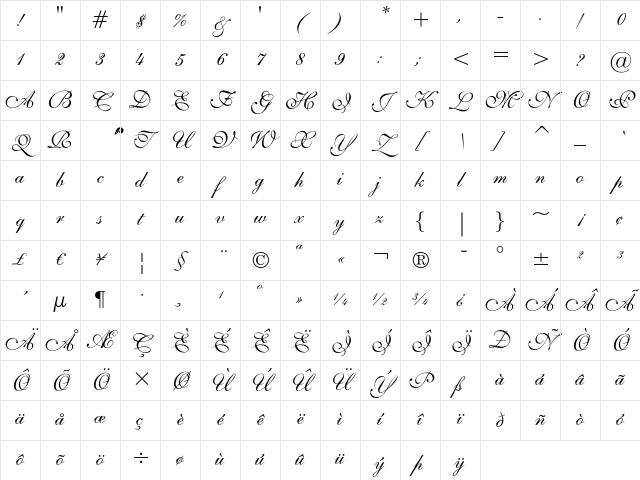
English 111 Presto
Style: Presto
English 111 Presto
English 111 Presto Font Preview
English 111 Presto Uppercase Preview
English 111 Presto Lowercase Preview
English 111 Presto Numeric Preview
English 111 Presto Character Map
Complete English 111 Presto glyph index. Displaying only characters natively supported by English 111 Presto font.
English 111 Presto Character Map
Design Context for English 111
English 111 is a composed and adaptable typeface that performs quietly and consistently across a wide range of design contexts.